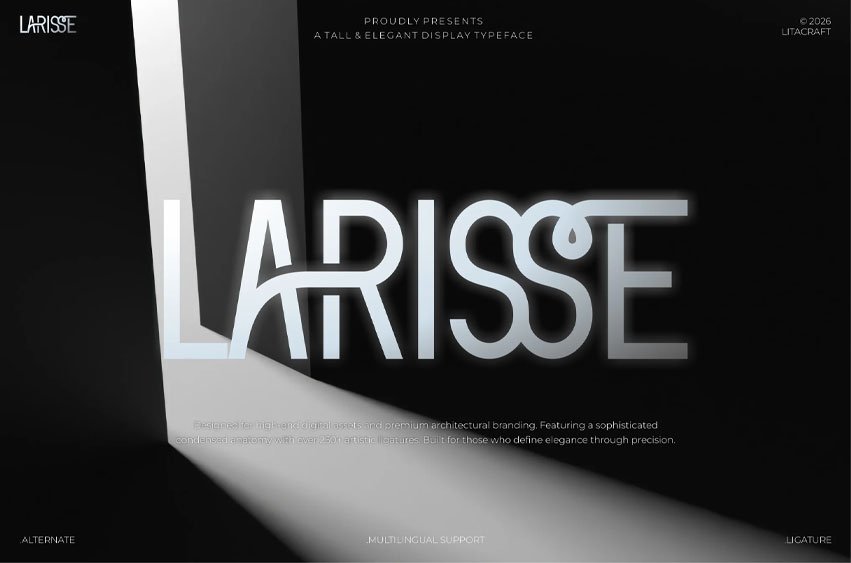
Larisse Font Elevate your brand with a typeface that defines structural sophistication. Larisse is a masterfully crafted display typeface designed for visionaries who demand both futuristic edge and timeless luxury. Inspired by modern architectural silhouettes and high-tech digital interfaces, Larisse bridges the gap between rigid geometry and sophisticated luxury.
With over 250+ Smart Glyphs, Larisse allows you to create custom-looking logotypes instantly. Whether you are designing for a luxury skyscraper, a cutting-edge software interface, or premium consumer goods, Larisse provides the authority and elegance your project demands.
- Complete Set Alphabet (Uppercase & Lowercase)
- Unique Ligatures and Stylistic Alternates: Over 250+ smart glyphs to create unique logo-like typography instantly.
- Multilingual Support: Full Multilingual Support for Western, Central, and South Eastern European Languages.
- Multi-Industry Versatility: Optimized for tech/digital marketing, editorial displays, architectural signage, even luxury brand.